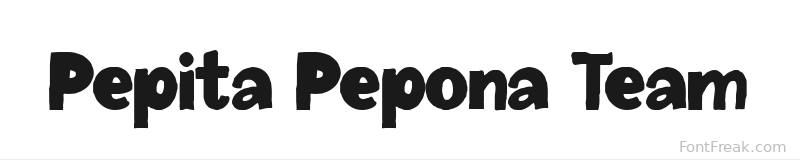
Pepita Pepona Team
The Pepita Pepona Team font by woodcutter Manero is a delightful display typeface that captures attention with its playful and whimsical design. This font falls under the decorative category, featuring bold, rounded letterforms that exude a sense of fun and creativity. The stroke weight is consistent, offering a balanced appearance, while the slight contrast in thickness adds a dynamic quality. The generous spacing between characters enhances readability, making it an engaging choice for various applications.
Best suited for creative projects, the Pepita Pepona Team font can elevate wedding invitations with its charming personality, making them feel unique and memorable. It is also perfect for children’s book covers, where its lively character can resonate with young readers. Additionally, restaurant menus can benefit from this font, as it adds a friendly touch that invites patrons to explore the offerings. For graphic designers and content creators, this font can enhance social media graphics and promotional materials, bringing a fresh and vibrant aesthetic.
Targeted toward graphic designers, small business owners, and anyone in need of a distinctive typeface, the Pepita Pepona Team font free download offers an accessible option for those looking to infuse creativity into their projects without incurring costs. Its versatility makes it a valuable asset for anyone aiming to capture attention and convey a light-hearted message.
What sets the Pepita Pepona Team font apart is its ability to blend playfulness with functionality. It stands out not only for its unique visual appeal but also for its adaptability across various mediums. Whether used in print or digital formats, this font is sure to leave a lasting impression, making it a favorite among users seeking a distinctive yet approachable typeface.